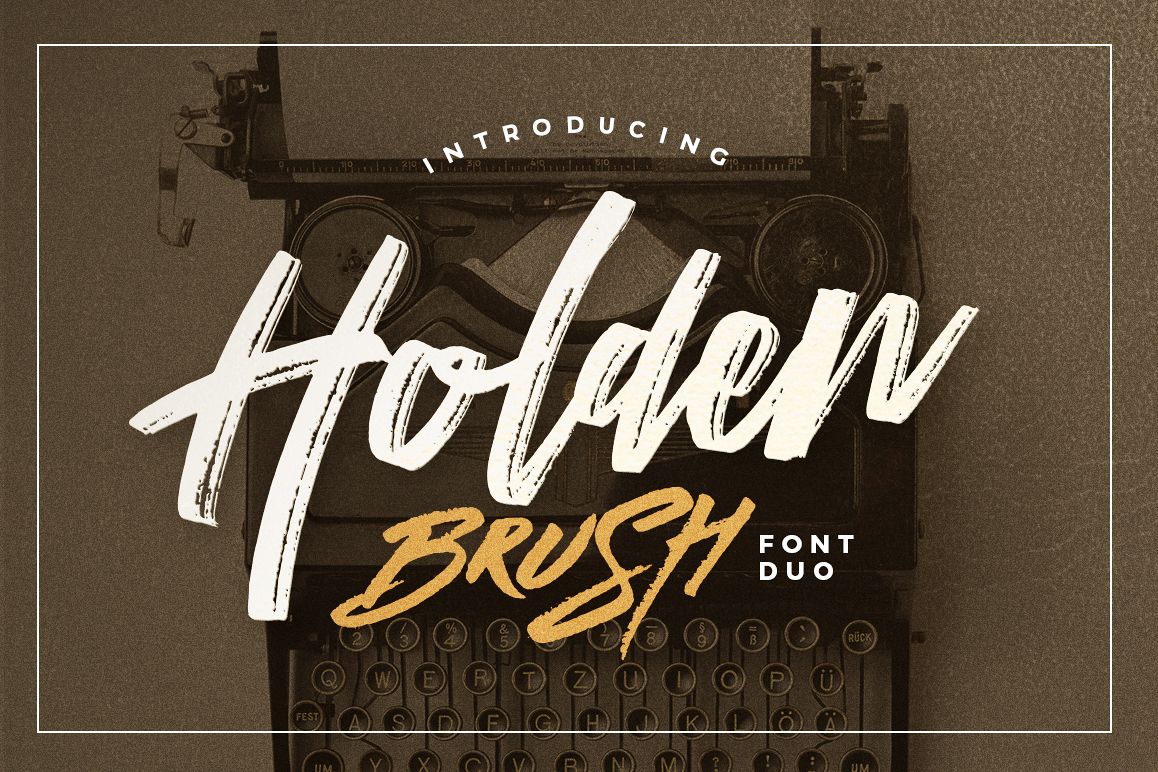
Holden Brush
Holden Brush Font Duo the new brand typeface with personalities. authentic dry brush imperfections, and a very bouncy baseline It has a perfectly paired complimentary marker font , and a super handy set of bonus Swash. Ideal for logos, handwritten quotes, product packaging, header, poster, merchandise, social media & greeting cards.Features